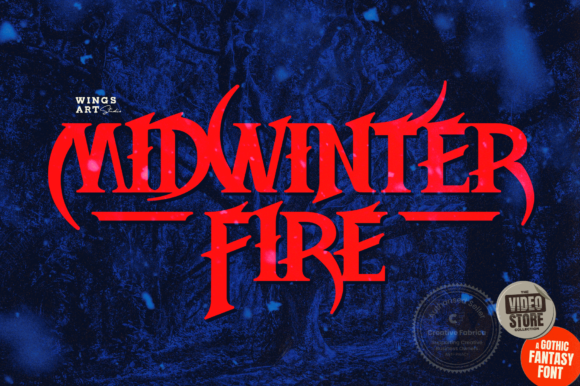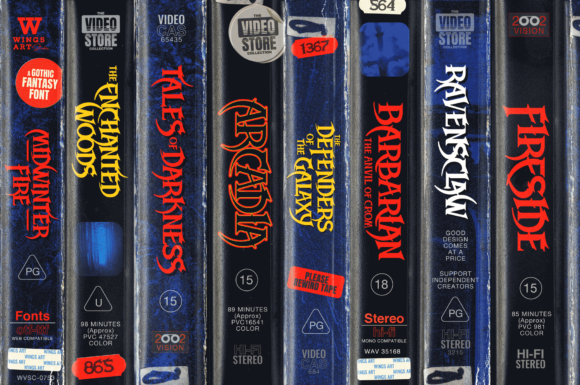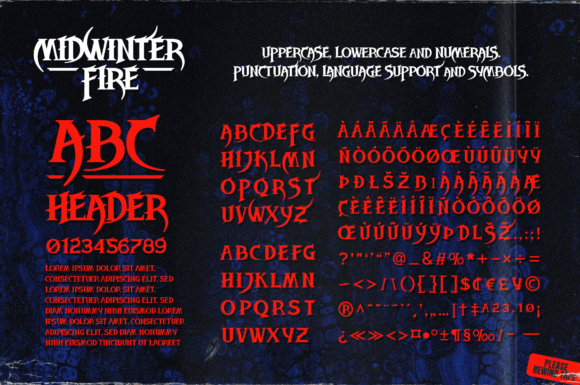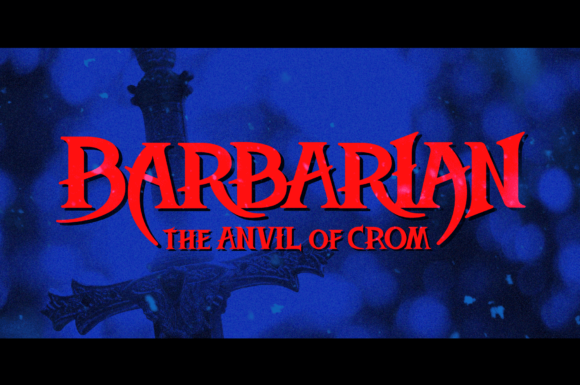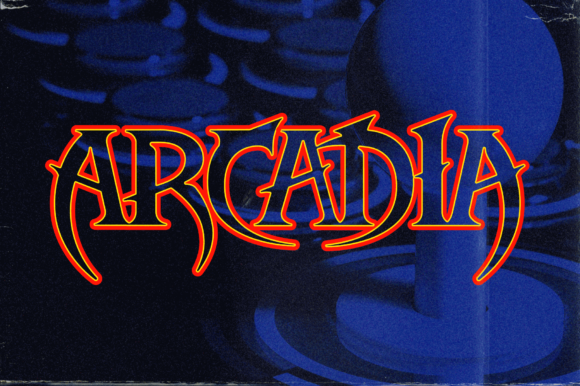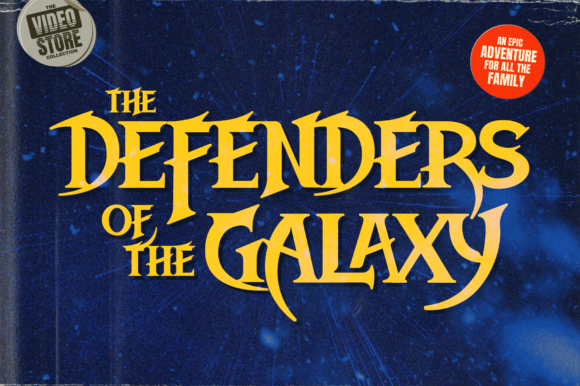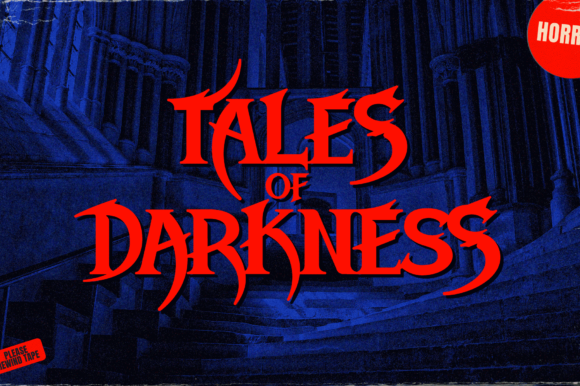
Midwinter Fire Font Font
Widwinter Fire is a gothic looking, dark and bold display font. It is PUA encoded which means you can access all of the amazing glyphs and ligatures with ease!